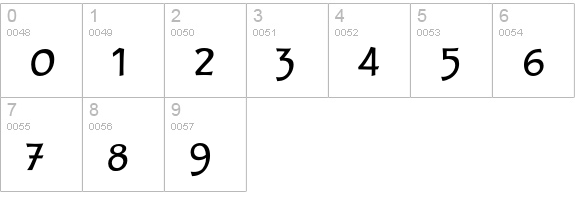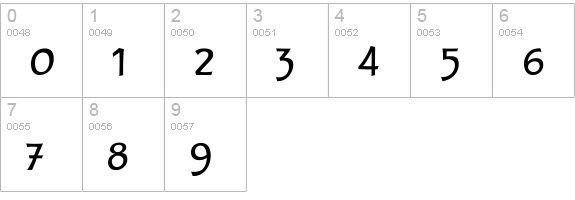
Clair-Regular Font Details
Clair-Regular is the standard, neutral variant in the Clair typeface family \xE2\x80\x94 well suited to general body text, paragraphs, and standard typographic work.
Clair-Regular is a versatile and elegant font that exudes sophistication and clarity. Its clean lines and timeless design make it suitable for a wide range of projects, from branding and advertising to editorial and web design. The classic yet modern appearance of Clair-Regular ensures that it will stand the test of time and remain a reliable choice for any creative endeavor. Best of all, Clair-Regular is completely free to download at FontsMarket.com. This means that you can access this high-quality font without any cost, making it an excellent option for both personal and commercial use. Don't miss out on the opportunity to enhance your projects with the timeless beauty of Clair-Regular - download it for free today at FontsMarket.com.